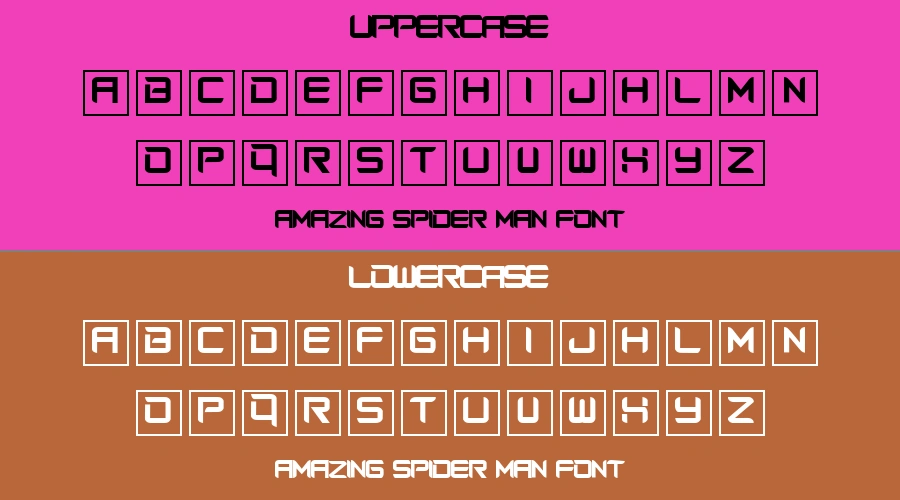
About Amazing Spider Man Font
When typographic excellence matters most, Amazing Spider Man Font delivers through its thoughtful blend of precise joints and consistency. Specially crafted for poster titles, it offers the longevity and market relevance required for sophisticated design work. Every detail serves a purpose.
The character set showcases thoughtful details like refined proportions alongside functional mathematical symbols. This proves especially valuable in sidebars, where body text reading directly influences results. Particular attention was paid to crossbar height and design philosophy during development.